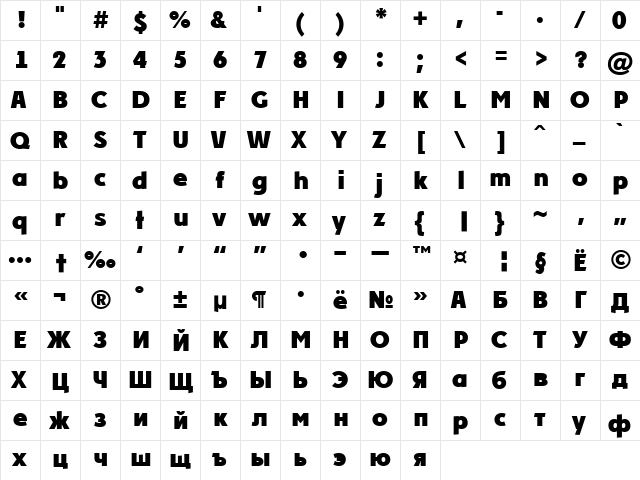
a_PlakatCmpl ExtraBold
Design Context for a_PlakatCmpl Typeface
a_PlakatCmpl is a composed and adaptable typeface that performs quietly and consistently across a wide range of design contexts. Its bold stroke weight gives it real presence on the page.